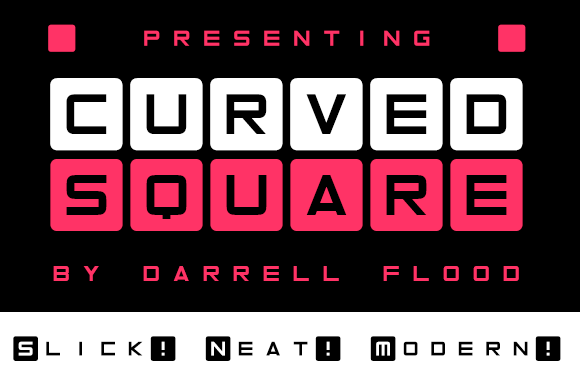
Curved Square Font
Unleash the Visual Symphony: Presenting Curved Square Font, the Masterpiece of Modern Typography!
In the realm of visual communication, there exists a font that transcends the boundaries of ordinary typefaces. It's a font that commands attention, ignites imaginations, and leaves an indelible mark on the hearts of those who behold it. Allow us to introduce the Curved Square Font, a typographic masterpiece that will redefine your creative endeavors.
Curved Square Font belongs to the illustrious display font family, a group of typefaces renowned for their captivating presence and bold aesthetics. As its name suggests, the Curved Square Font exudes a unique charm, blending the sharp lines of geometric shapes with the gentle curves of artistic expression. The result is a font that is both visually striking and versatile, capable of transforming ordinary words into captivating works of art.
Step into a world where visual impact reigns supreme. The Curved Square Font is meticulously crafted to deliver maximum impact in titles, posters, and any other design element that demands attention. Its slightly curved corners lend an air of dynamism and energy, while the boxed-in structure provides a solid foundation for your creative ideas. Let the Curved Square Font elevate your designs to new heights, capturing the essence of your message with unparalleled clarity and style.
But the Curved Square Font is more than just a pretty face. It's a font with a soul, a font that resonates with your emotions and speaks to your creative spirit. Darrell Flood, the font's creator, has infused it with a touch of magic, breathing life into each character. Experience the joy of crafting designs that dance off the page, designs that ignite conversations and leave your audience spellbound.
Dare to embrace the Curved Square Font, a font that will transform your creative journey. Whether you're a seasoned designer or just starting to explore the world of typography, the Curved Square Font will become your trusted companion, guiding you towards creative excellence.
Join the growing community of designers who have discovered the transformative power of the Curved Square Font. Unleash your creativity, captivate your audience, and leave a lasting legacy of visual brilliance.